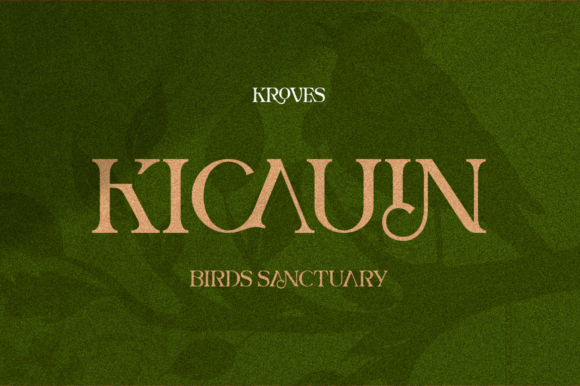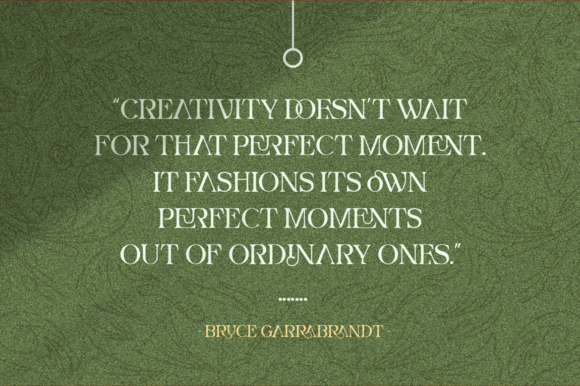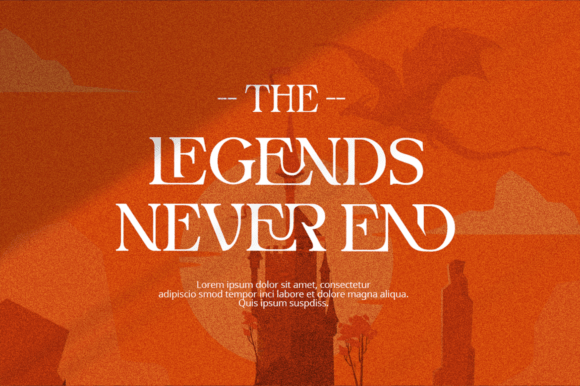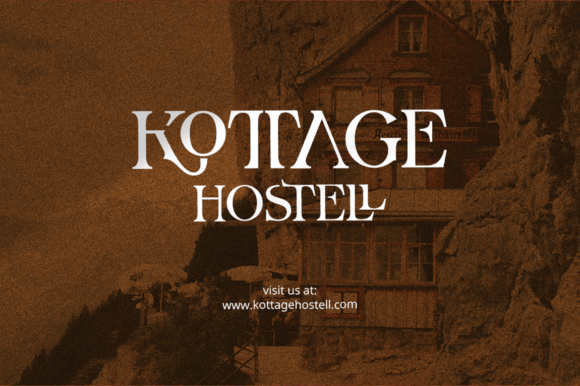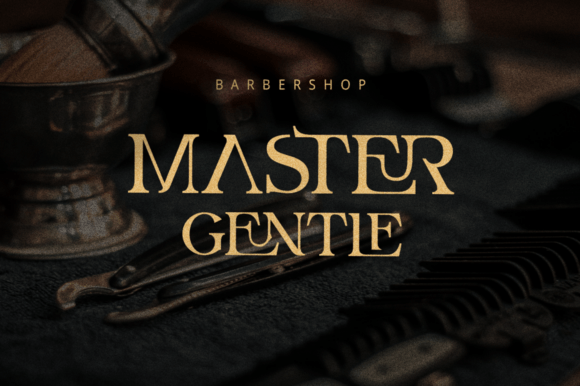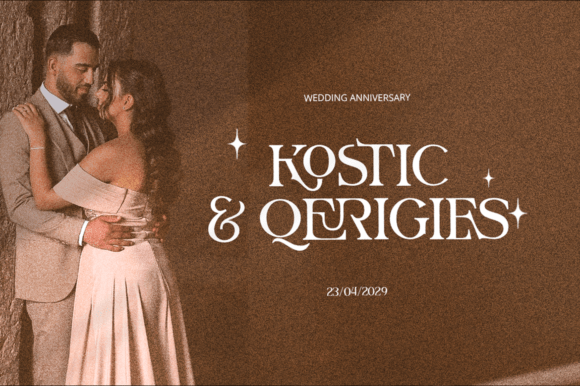
Introduction to Kroves Font
You’ve spent hours poring over design boards, perfecting the layout, and carefully selecting the fonts – but there’s that one last element that elevates your entire creative project from good to great. For designers, finding that elusive perfect font can be a game-changer, setting your work apart from the rest and making it truly unforgettable. One such game-changing font is Kroves Font, a refined and sophisticated serif font that has captured the hearts of designers worldwide.
With its precision-crafted lettering and distinctive ligatures, Kroves Font is a design resource that brings a touch of elegance and sophistication to any project. Whether you’re crafting social media content, creating a brand visual, or designing a quote, Kroves Font seamlessly infuses every element with an added measure of artistic excellence.
Key Features of Kroves Font
- High-quality font with a transparent background, perfect for creative projects that require a unique design resource.
- Includes a range of font sizes, from 12 to 72 points, allowing for flexibility in design applications.
- Resolution-independent design, ensuring that the font remains clear and legible at any resolution, from low to high DPI.
- Unique, hand-crafted design with intricate details, setting it apart from other fonts in its class.
- Supports a wide range of languages, making it a valuable resource for designers working on international projects.
Honest Review: Kroves Font
I recently stumbled upon the Kroves Font, a free design resource that caught my attention with its unique and creative style. As a designer, I’m always on the lookout for high-quality fonts that can elevate my projects and help me express my artistic vision.
What works well with Kroves Font is its versatility and ease of use. It’s a great addition to any design project, from logos and branding materials to digital assets and print materials. The font is available for free download, which is a major plus for designers on a budget or working on tight deadlines.
- ✨ Transparent background, making it easy to layer with other design elements
- ✨ Great for designers who want to add a touch of personality to their work
However, I did notice a few limitations. The font is only available in a single weight, which may not be ideal for projects that require a range of font weights. Additionally, the font may not be suitable for all types of designs, particularly those that require a more formal or traditional look.
Overall, I’m impressed with the Kroves Font and would definitely recommend it to fellow designers. It’s a great addition to any design resource library, and its free download makes it a steal. While it may have some limitations, the font’s unique style and versatility make it a valuable asset for any creative project.
Some common use cases for Kroves Font include graphic design, digital art, and marketing materials. To get the most out of Kroves Font, experiment with different font sizes, colors, and styles to find the perfect fit for your project.